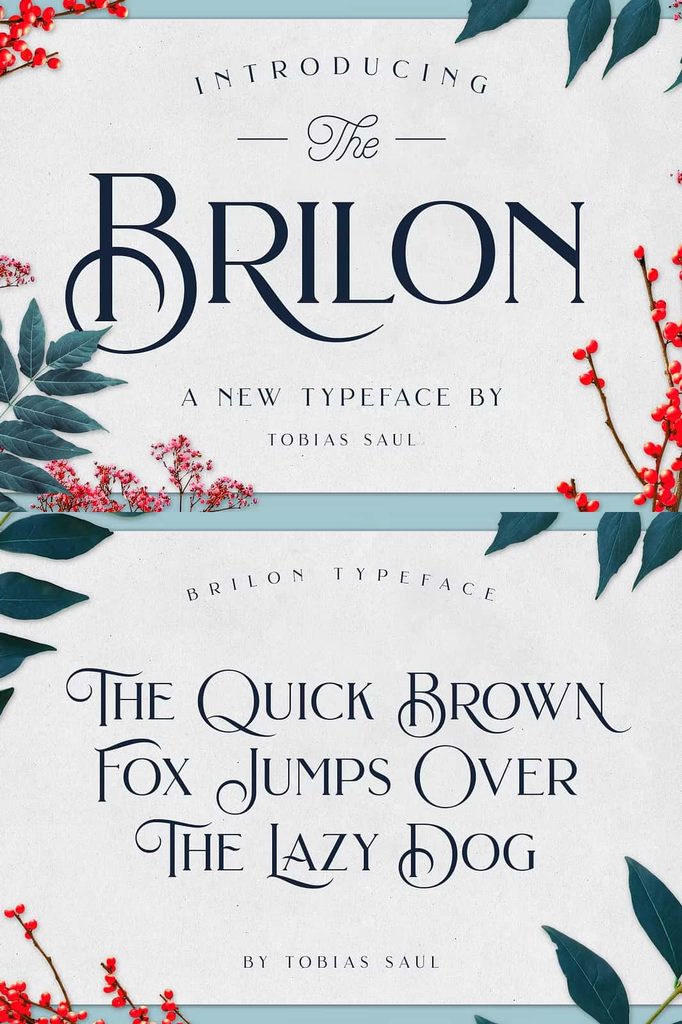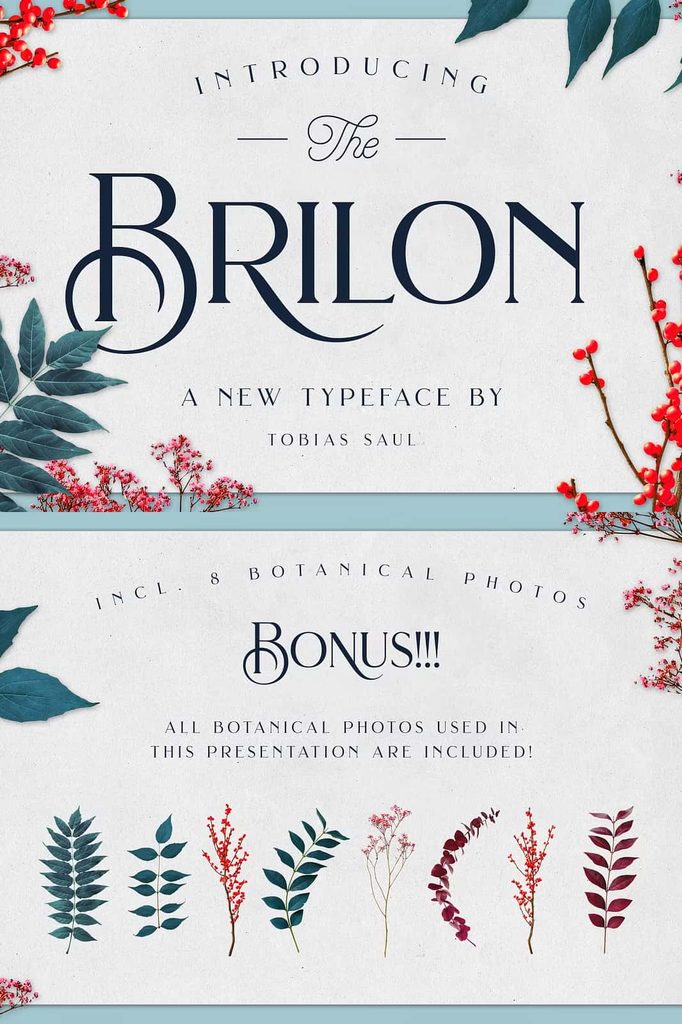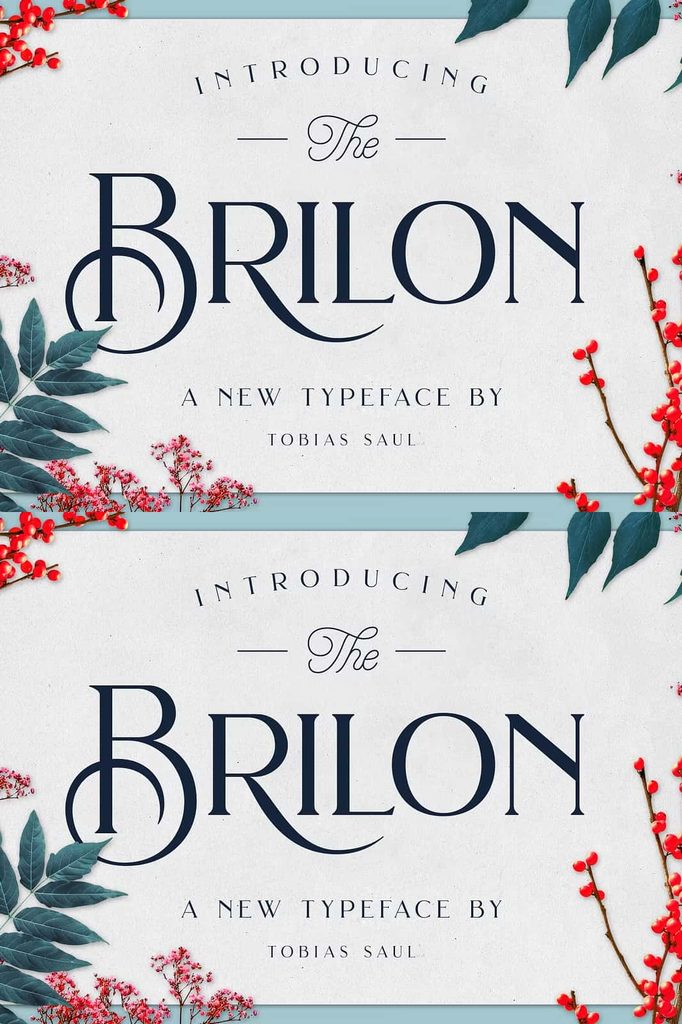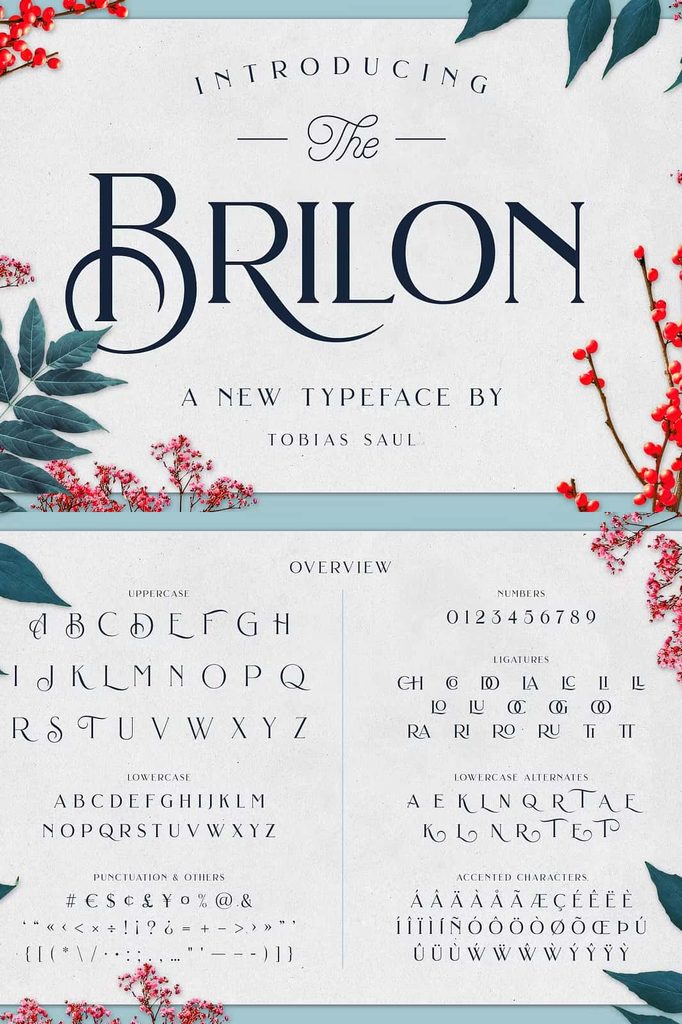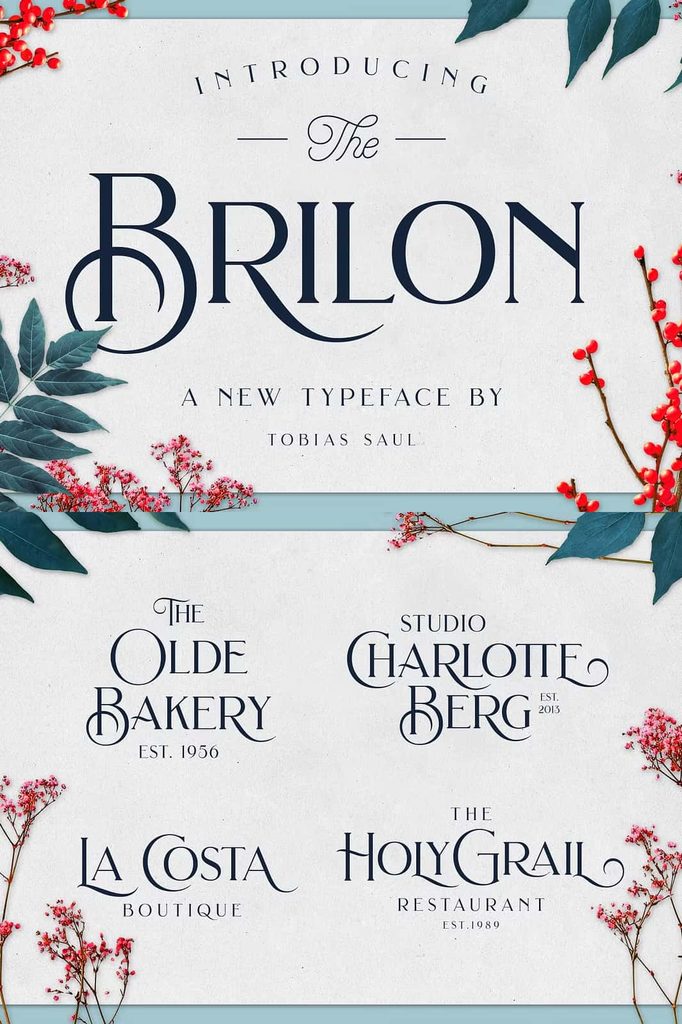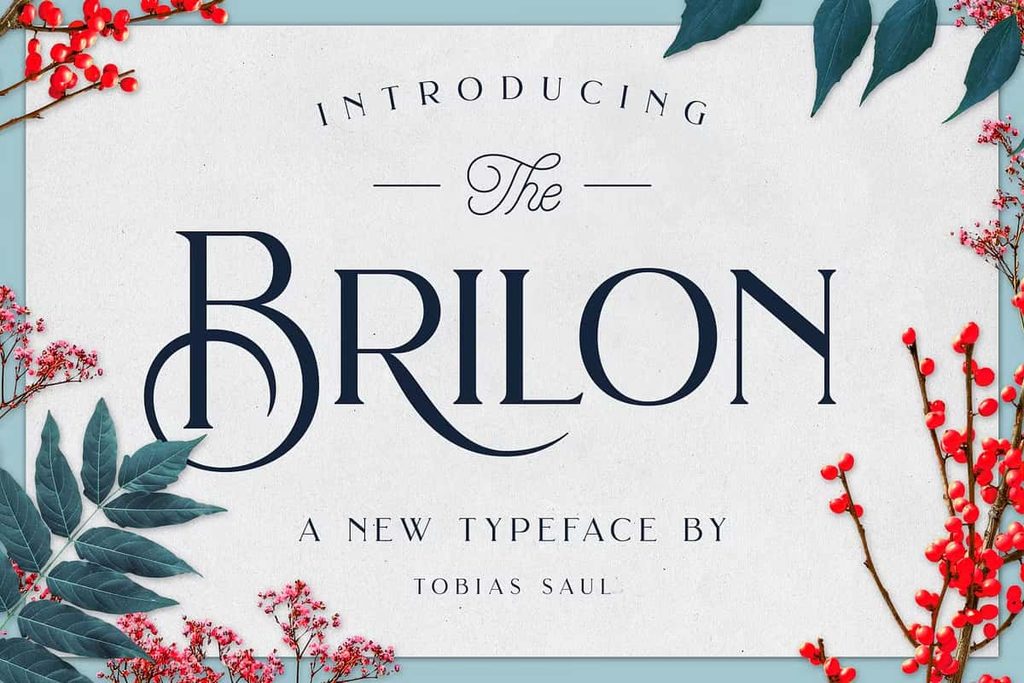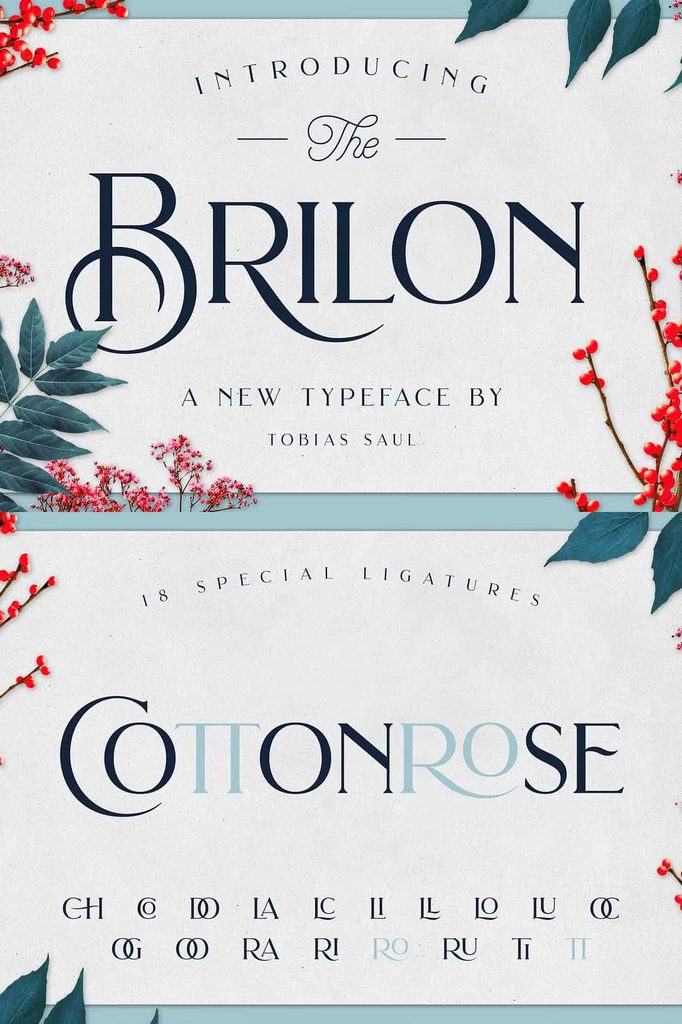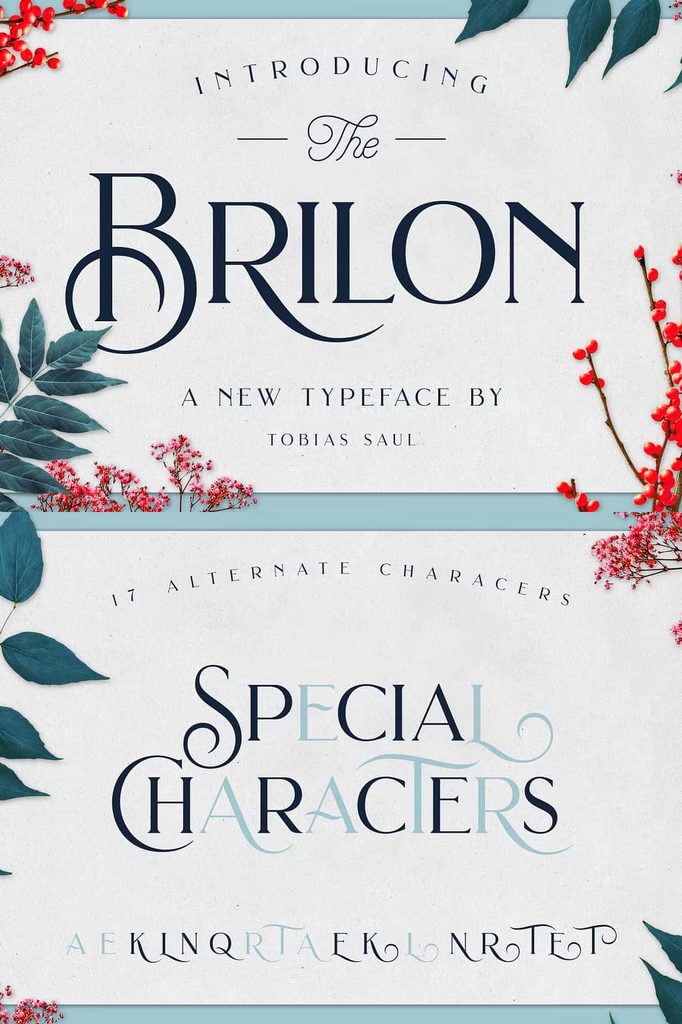
Brilon Font – An Elegant Art Deco Serif Typeface
Brilon Font brings the timeless elegance of the Art Deco era into a modern and minimalist typographic style. Inspired by the refined shapes, geometric details, and sophisticated atmosphere of vintage design, Brilon creates a distinctive visual identity without making a composition feel overly complicated. Its elegant serif forms give every word a polished appearance, making it an excellent choice for designers who want to combine classic glamour with contemporary simplicity.
Drawing inspiration from the luxurious aesthetics of the 1920s and 1930s, Brilon captures the spirit of Art Deco while adapting it for today’s creative projects. The typeface balances decorative character with clean construction, allowing you to create sophisticated designs that feel both nostalgic and current. Whether you are designing a premium logo, stylish packaging, an elegant invitation, or a refined editorial composition, Brilon gives your typography a confident and memorable presence.
Art Deco Inspiration with a Modern Approach
Brilon Font takes the distinctive visual language of the Art Deco movement and translates it into a versatile serif typeface. Art Deco traditionally celebrates symmetry, luxury, geometry, and carefully constructed decorative forms. Brilon reflects those qualities while simplifying them enough to work effectively in modern graphic design.
The result is a typeface that feels vintage without looking outdated. Its refined letterforms can create a luxurious atmosphere while maintaining a clean visual structure. This balance makes Brilon particularly useful when a project requires sophistication but still needs to communicate clearly.
Use Brilon to establish a strong visual tone from the first glance. Its elegant forms can immediately transform an ordinary headline or brand name into something more distinctive. Pair it with minimalist layouts, generous spacing, subtle textures, or carefully selected imagery to emphasize its Art Deco influence.
Elegant Serif Letterforms
The serif construction gives Brilon a classic and sophisticated personality. Its letterforms add visual detail without relying on excessive ornamentation, allowing the typeface to remain versatile across different design styles.
Use the font for prominent titles, brand names, headlines, packaging text, and other display applications where typography needs to attract attention. Its elegant appearance can also complement feminine, luxurious, editorial, fashion, beauty, and lifestyle branding.
Brilon works particularly well when you give its letterforms enough space to breathe. Minimal layouts can highlight the details of the characters and create a premium appearance. You can also combine Brilon with a simple sans serif to create contrast between decorative elegance and modern clarity.
Special Uppercase Characters and Alternates
Brilon includes special uppercase letters and alternate characters that give designers additional creative control. These options allow you to customize individual words and create a more distinctive typographic composition.
Instead of using identical letterforms throughout every design, experiment with the available alternates to introduce subtle variations. This feature can help you create personalized logos, elegant monograms, editorial titles, and decorative headlines. Alternates also provide more flexibility when you need to adjust the visual rhythm of a word or phrase.
Beautiful Ligatures for Refined Typography
Brilon also includes beautiful ligatures that enhance the natural flow between selected characters. Ligatures can create smoother connections and add an extra layer of sophistication to display typography.
Use these special combinations strategically in logos, invitations, branding materials, and large headlines. They can help transform ordinary text into a more carefully crafted typographic composition. When you combine ligatures with the font’s alternate characters, you gain even more opportunities to create unique and memorable lettering.
Botanical Photos Included
Brilon comes with eight botanical photos used in the product presentation. These botanical elements complement the elegant personality of the typeface and can help designers build cohesive visual compositions.
Botanical imagery pairs naturally with sophisticated serif typography, especially in wedding stationery, beauty branding, packaging, invitations, and editorial layouts. Use the photographs as supporting visual elements alongside Brilon to create a soft and refined aesthetic. You can also incorporate botanical themes into backgrounds, promotional graphics, social media designs, and presentation materials.
Perfect for Elegant Logo Design
Brilon Font makes an excellent choice for elegant logo design. Its Art Deco influence gives brand names a sophisticated identity, while its modern construction keeps the result clean and adaptable.
Use Brilon for fashion labels, beauty brands, boutique businesses, event companies, lifestyle products, luxury services, and creative studios. Experiment with uppercase lettering, alternate characters, and ligatures to create a distinctive wordmark that feels carefully designed and memorable.
Brilon Font for Packaging Design
Packaging provides another excellent opportunity to use Brilon. Its elegant serif forms can help products communicate quality, refinement, and attention to detail. Apply the font to product names, labels, ingredient sections, promotional packaging, or special edition collections.
Combine Brilon with botanical imagery, simple layouts, and restrained decorative elements to create packaging that feels sophisticated without becoming visually crowded. Its vintage inspiration can also work beautifully for products that reference heritage, craftsmanship, beauty, or classic luxury.
Elegant Invitations and Stationery
Brilon works naturally for invitation cards and stationery. Its refined letterforms can add a graceful touch to wedding invitations, engagement announcements, event cards, menus, thank-you cards, and other formal printed materials.
Use the font for names, titles, dates, or prominent phrases. Pair it with delicate botanical imagery and a complementary font for supporting information. This combination can create a cohesive stationery collection with a sophisticated and timeless appearance.
Creative Uses for Brilon Font
Fashion and Beauty Branding
Use Brilon to give fashion and beauty brands a polished visual identity. Its elegant serif forms can communicate sophistication while its Art Deco character adds personality.
Editorial Design
Apply Brilon to magazine covers, feature headlines, fashion editorials, lookbooks, and promotional publications. Its strong display presence helps establish clear hierarchy and visual interest.
Social Media Graphics
Create sophisticated social media posts, promotional graphics, announcements, and quote designs with Brilon. Its distinctive appearance can help typography stand out in visually competitive feeds.
Wedding Design
Build coordinated wedding materials with Brilon, including invitations, menus, signage, seating cards, programs, and thank-you stationery. Its elegant personality works especially well with botanical and minimalist themes.
Why Choose Brilon Font?
Brilon Font combines vintage Art Deco inspiration with a clean modern approach. It gives designers the elegance of classic serif typography while providing useful contemporary features such as alternate characters and ligatures. The additional botanical photos further expand the creative possibilities of the font package.
Its versatility makes Brilon suitable for both digital and print projects. Use it boldly in a logo, delicately on an invitation, prominently on packaging, or creatively throughout an editorial layout. The typeface adapts to different applications while maintaining its sophisticated visual identity.
Create Sophisticated Designs with Brilon
Brilon Font offers an elegant way to bring Art Deco aesthetics into contemporary design. Its vintage-inspired serif forms create a luxurious foundation, while its minimalist approach keeps compositions fresh and relevant. Special uppercase characters, alternate glyphs, and beautiful ligatures give you the tools to customize your typography and build distinctive visual identities.
Whether you are creating an elegant logo, premium packaging, wedding stationery, fashion branding, editorial artwork, or social media graphics, Brilon can add a refined and memorable character to your project. Combine its sophisticated typography with botanical imagery and minimalist layouts to create designs that feel timeless, graceful, and confidently modern.